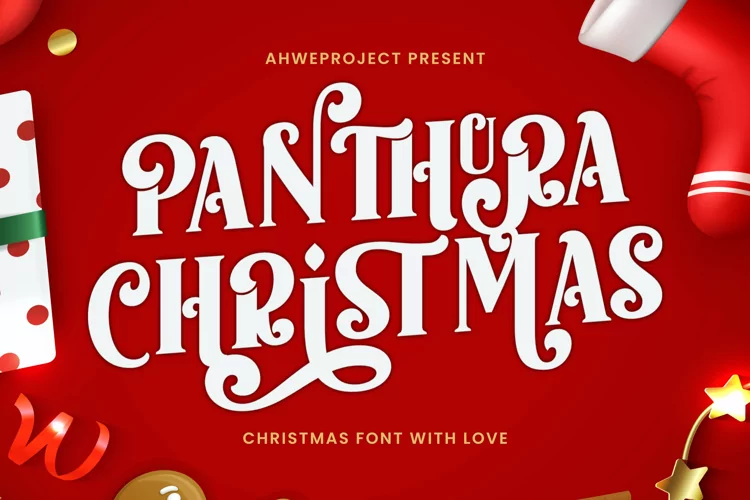
Panthura Christmas
Panthura Christmas is a festive and incredibly classy display font. It is ideal for any of your winter break creations so add it to your designs and bring them to life!
Panthura Christmas is PUA encoded which means you can access all of the glyphs and swashes with ease!
Full set of Upper & Lowercase Character
Number & Punctuation
Multilingual Language
PUA encoded
Opentype Features